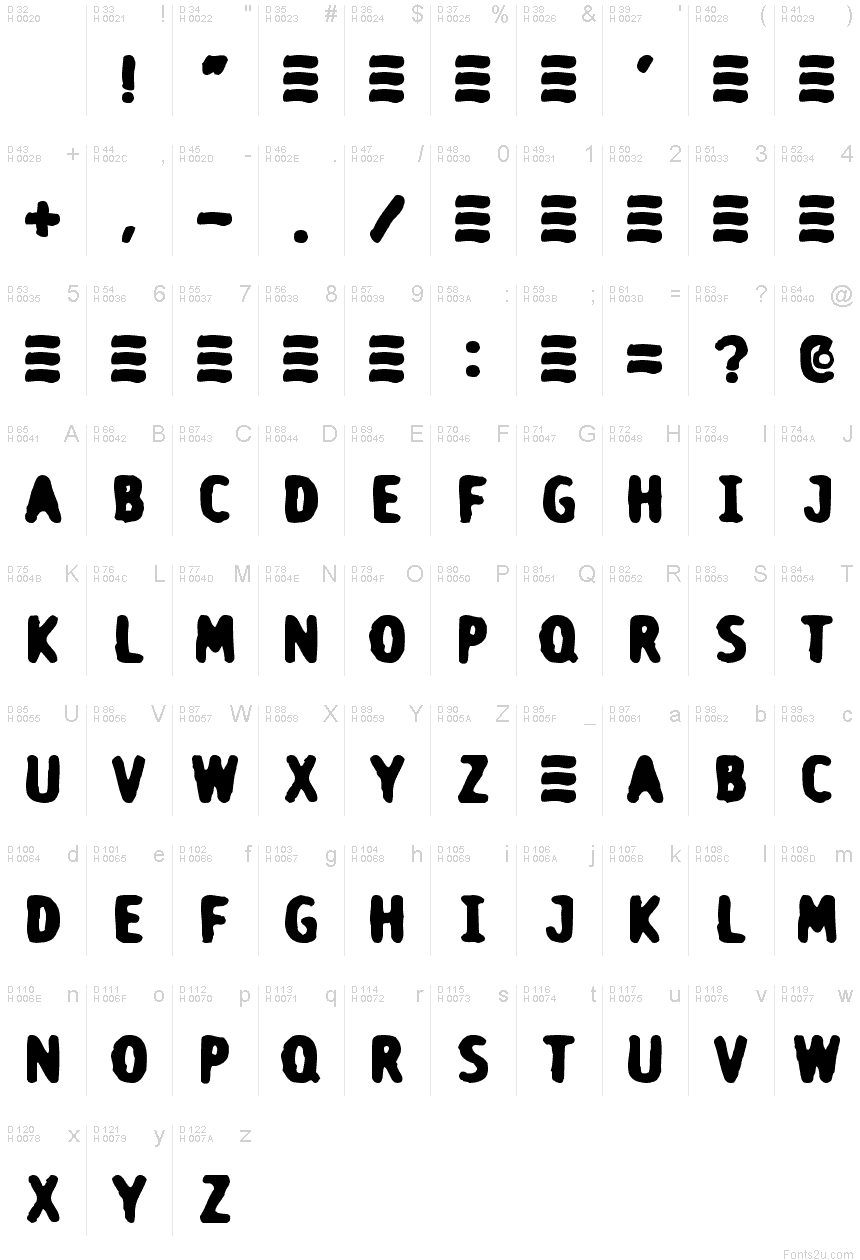
doyourthing
doyourthing font by Lindkvist is a free eroded display font with big, pillowy shapes and gnawed, inky edges that feel hand-stamped rather than polished. Its chunky rhythm stays readable even when you push it loud, giving headlines a playful grit without turning messy.
Using doyourthing, you’ll get instant attitude on streetwear logos, skate or surf posters, album covers, sticker packs, indie zines, event flyers, and social promos. Set it large so the worn texture can breathe, then pair it with a clean geometric sans for the details—dates, captions, and fine print. This free font likes contrast in both vibe and spacing.